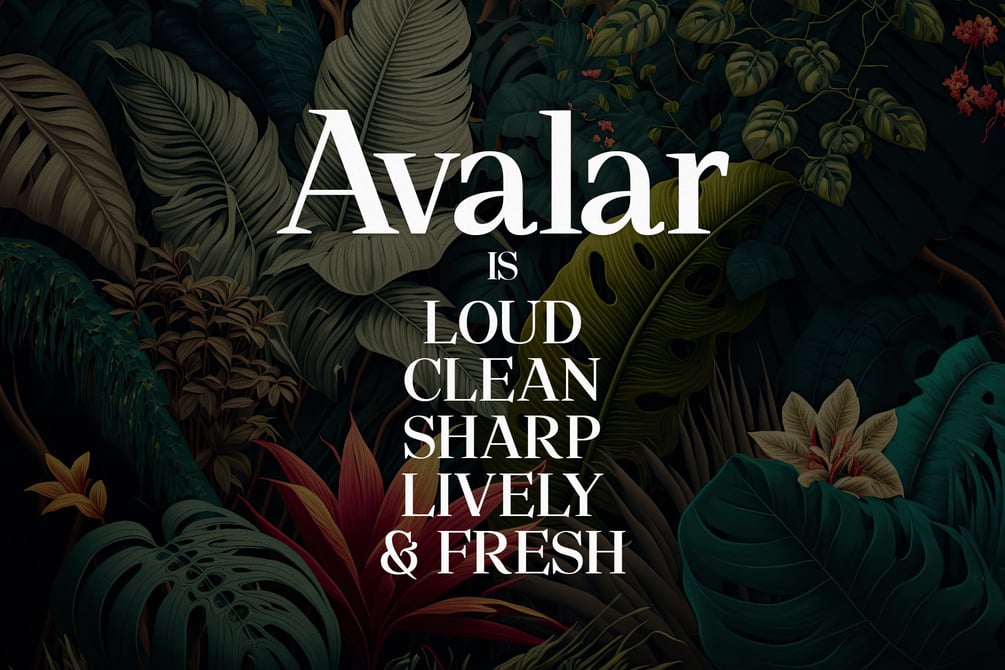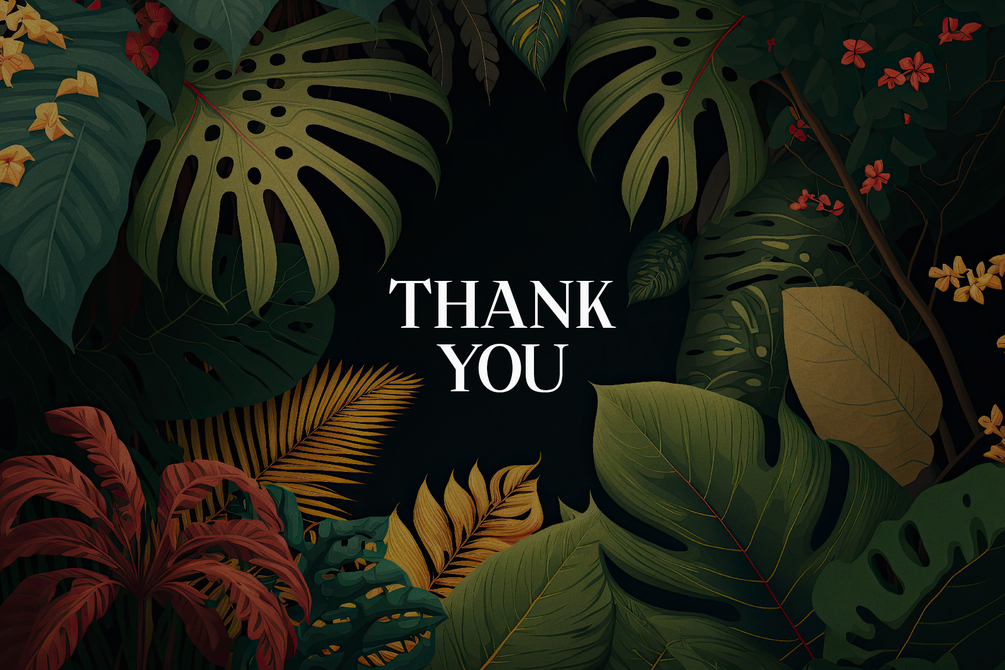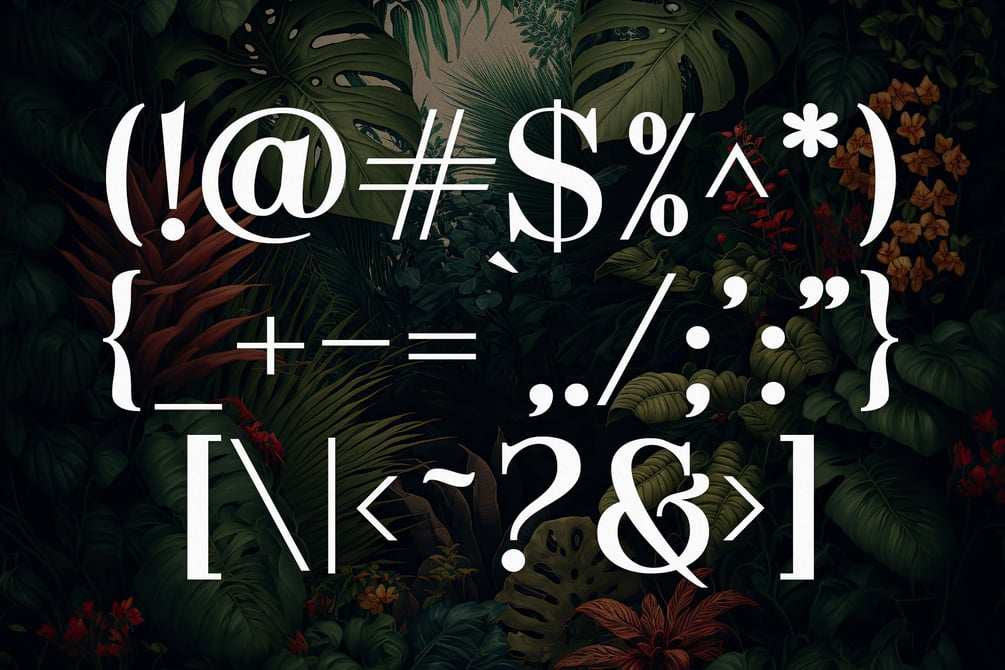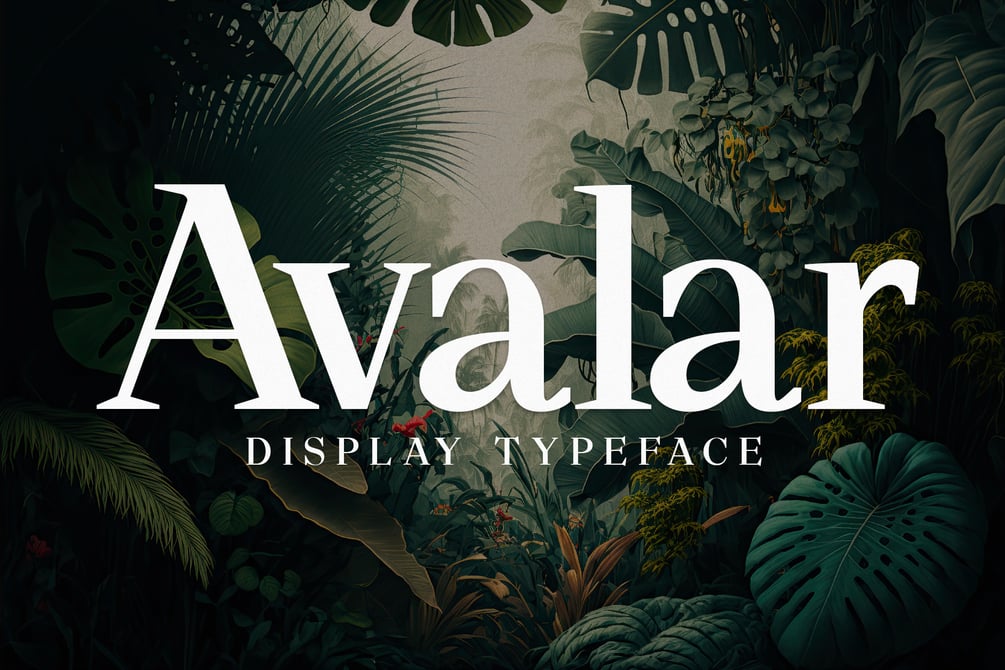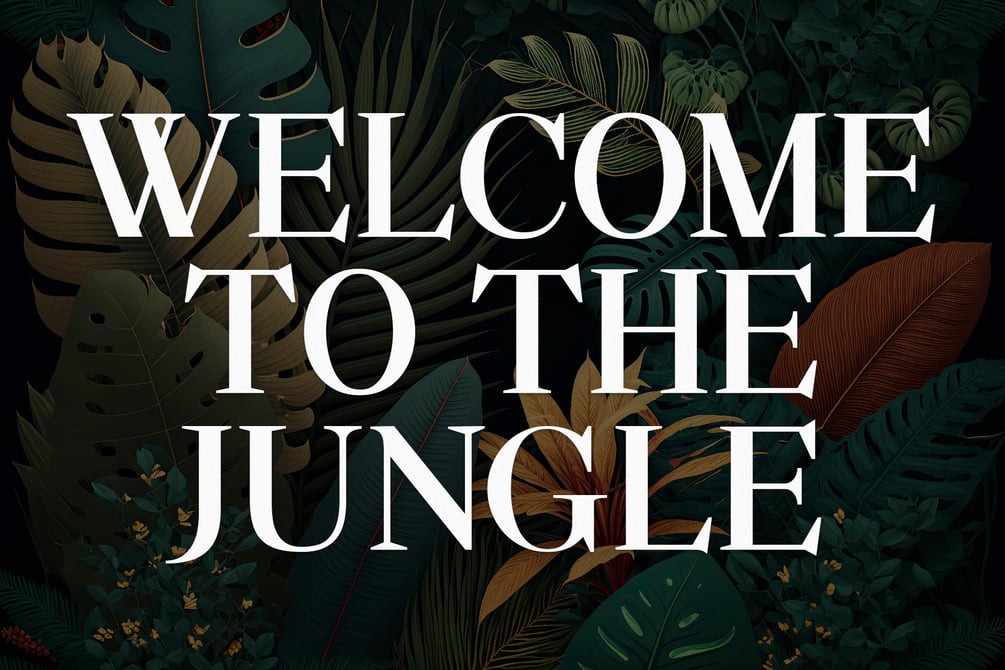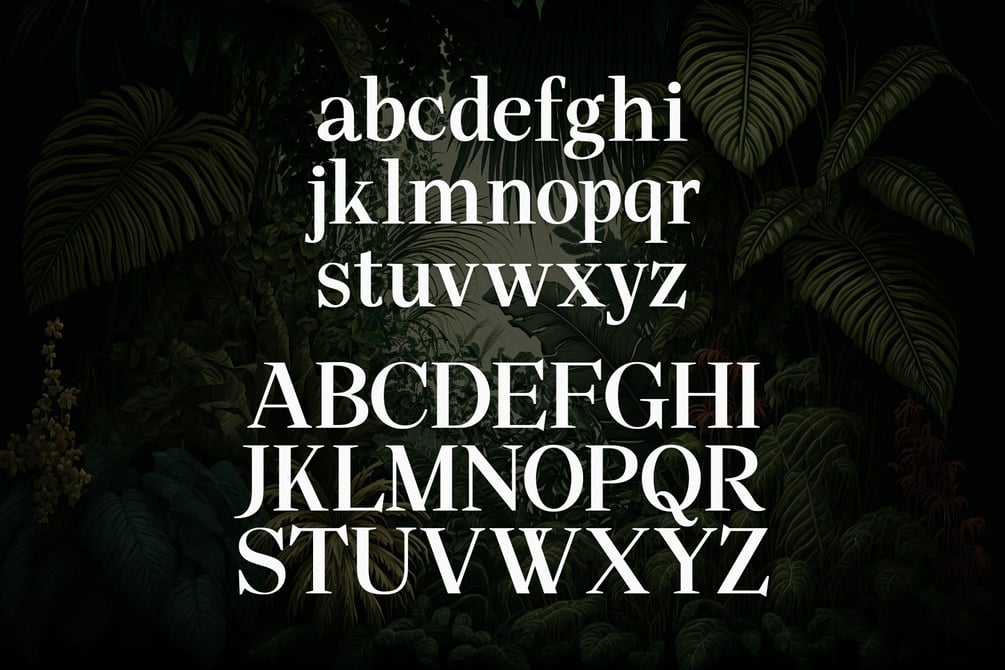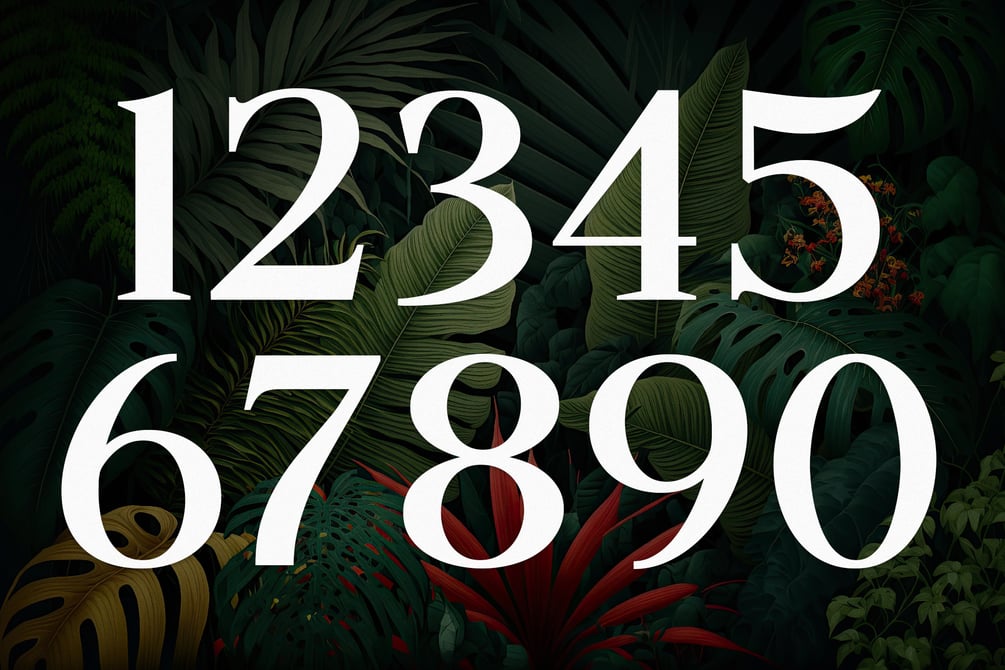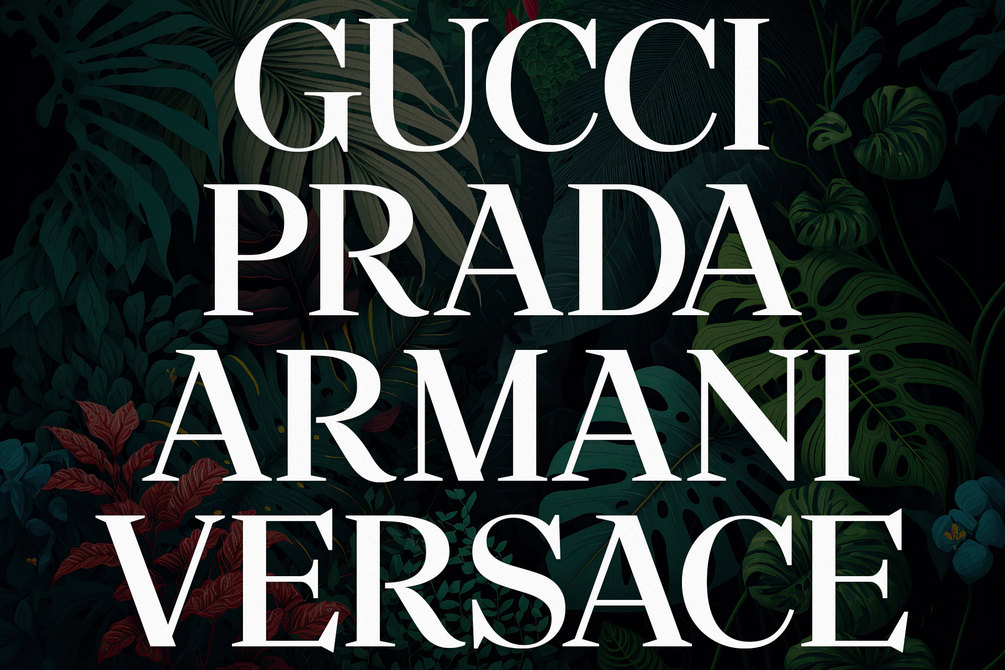
Avalar - Elegant Display
Avalar is an attention grabbing serif display typeface. Unlike other fonts that try to stay quiet, Avalar is extroverted, lively, and bold. Create beautiful wedding invitations, magazines, books, packaging designs, websites, mobile applications, logos, and much more. This refreshing typeface is timeless, meaning it will look beautiful in the past, present, and future. Avalar comes in bold and regular.